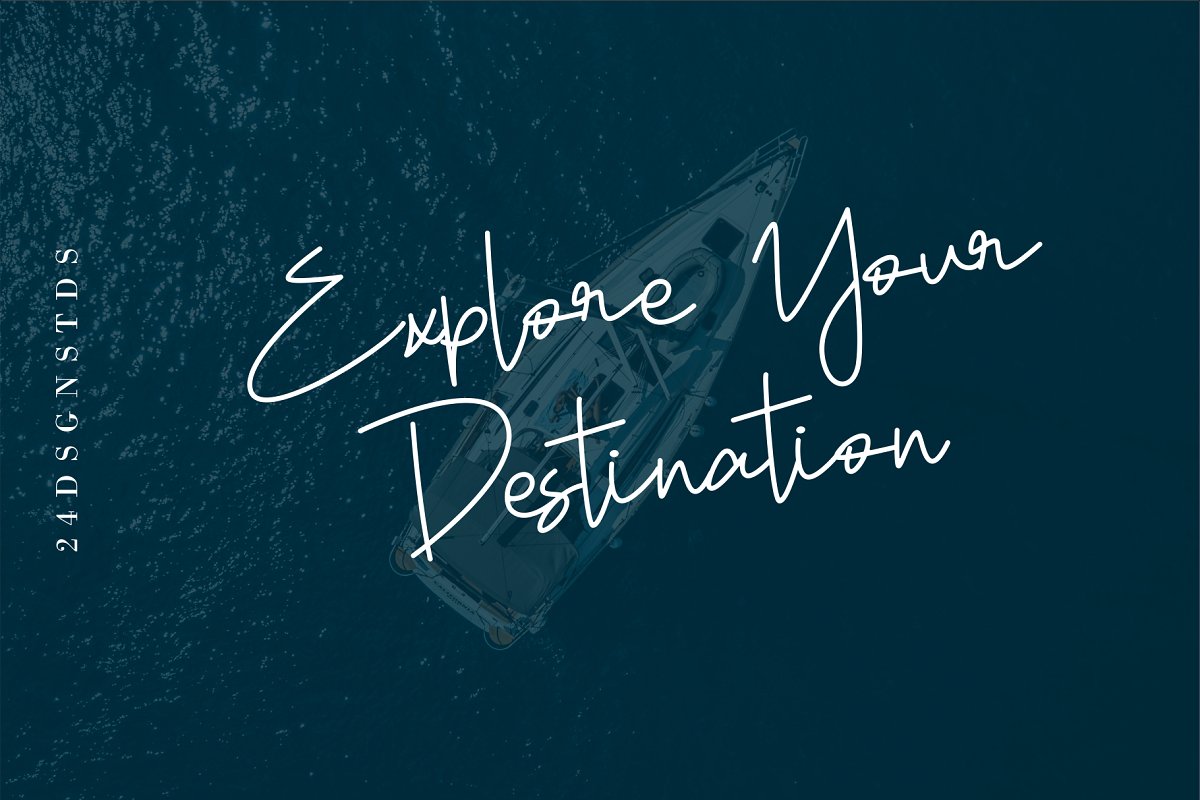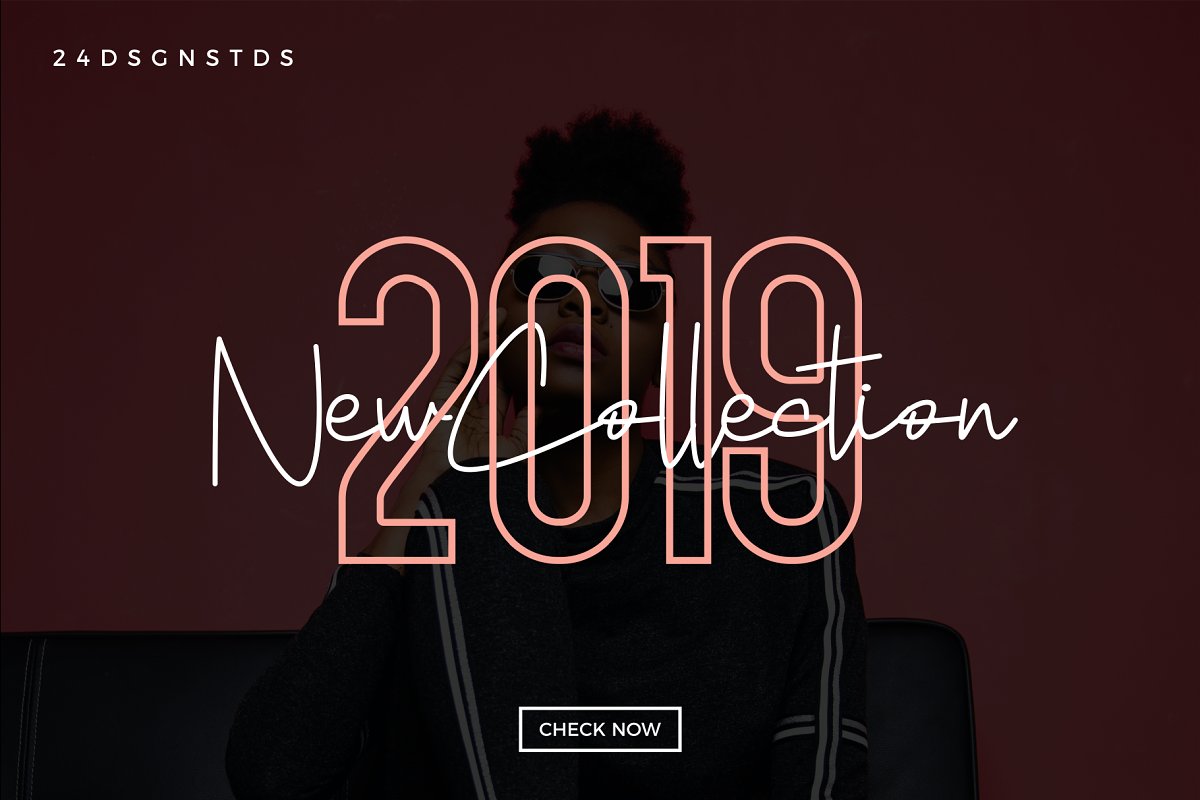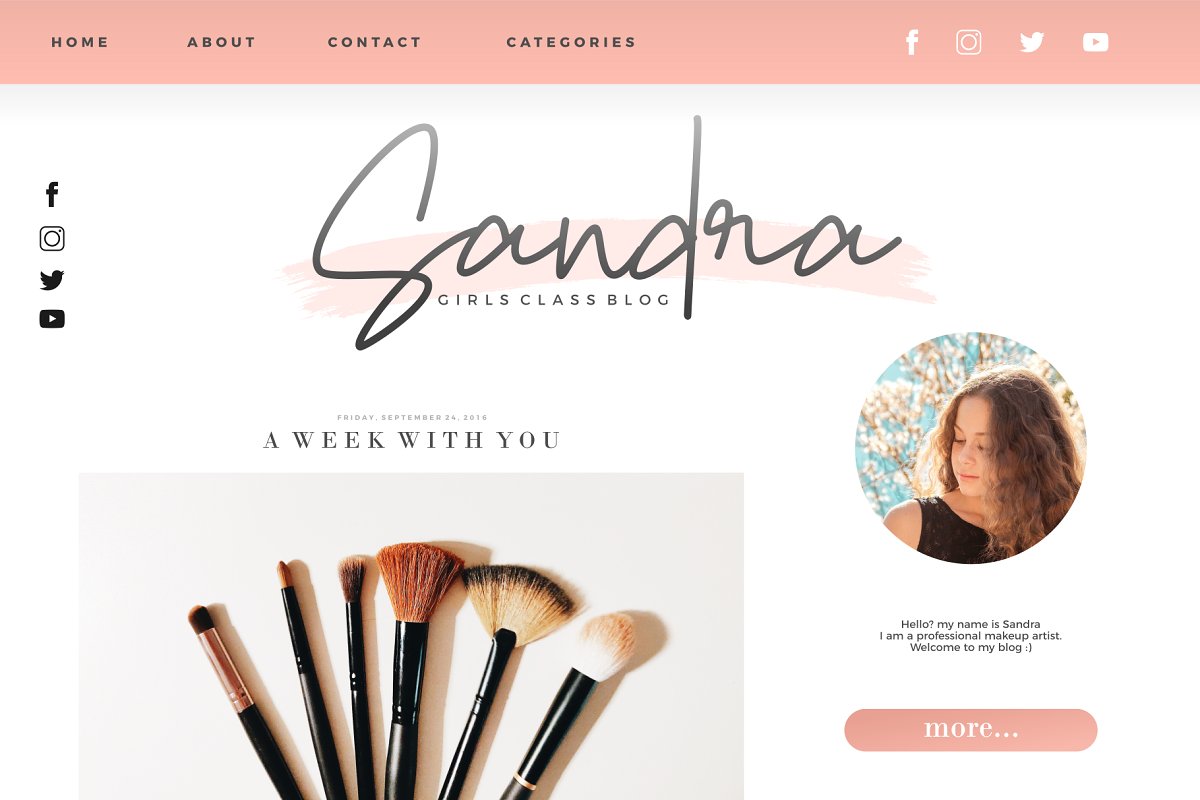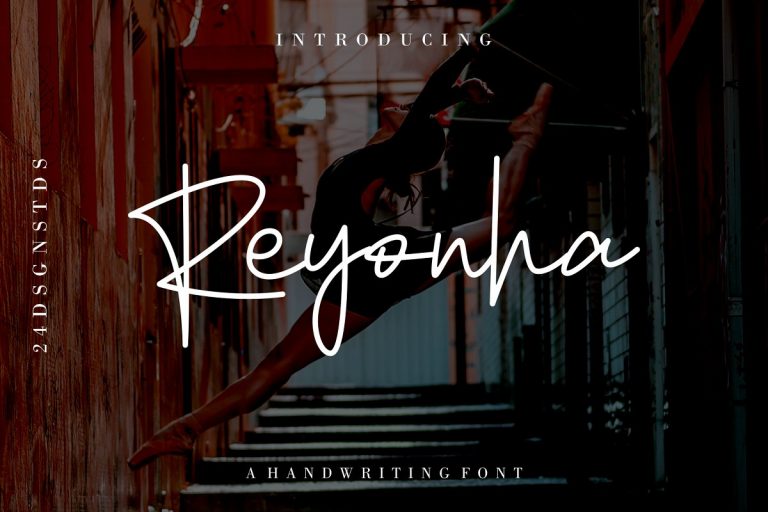
Reyonha Handwriting Font
Reyonha Handwriting Demo Font
Thank you for looking Reyonha Font, with modern Handwritten style, this font will perfect for many different project! Reyonha design and shared by 24Design Studios. Reyonha Handwriting Font is a hand-written font with monoline style, where the fonts look simple but are able to give the impression of modernity. This font is suitable for things that require feminine touch or romanticism of women’s magazines, quotes about women, fashion, logos, book titles, and others.